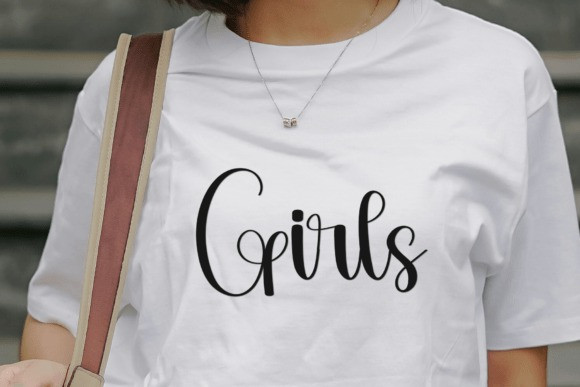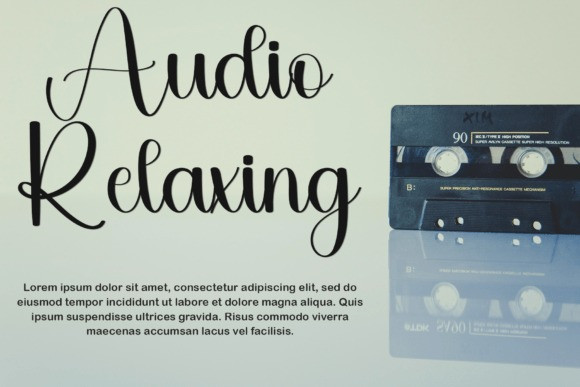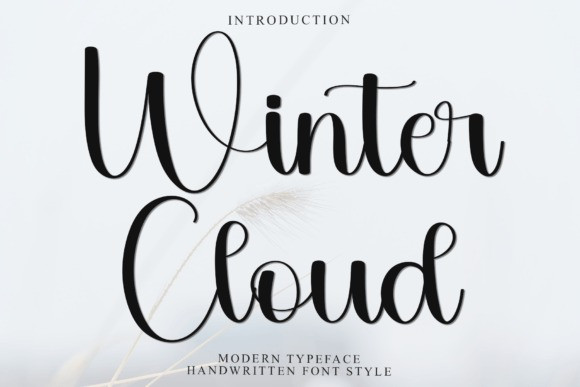
Winter Cloud Font
Winter Cloud Font is a sweet and delicate handwritten font. Dainty and joyful, this font will be ideal for writing wedding invitations, cards or any other design that may need a romantic, personalized touch!